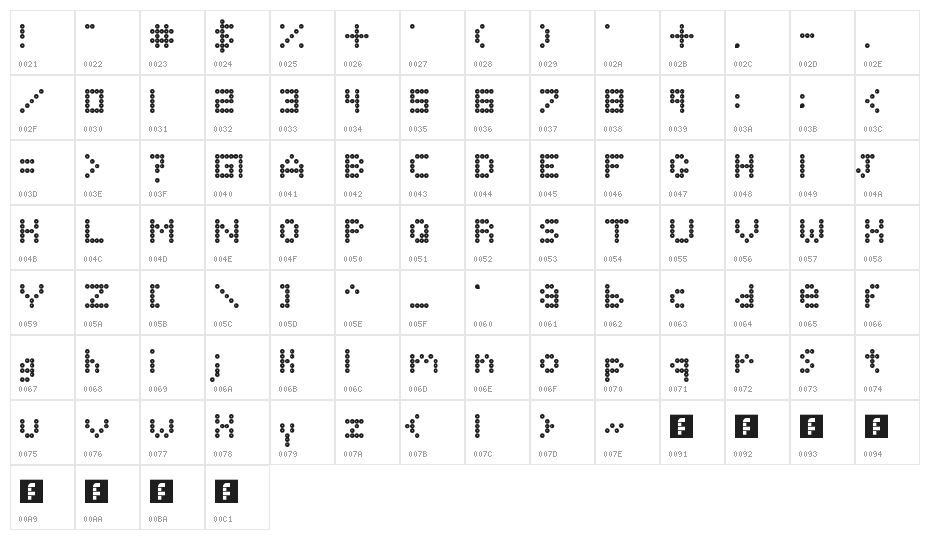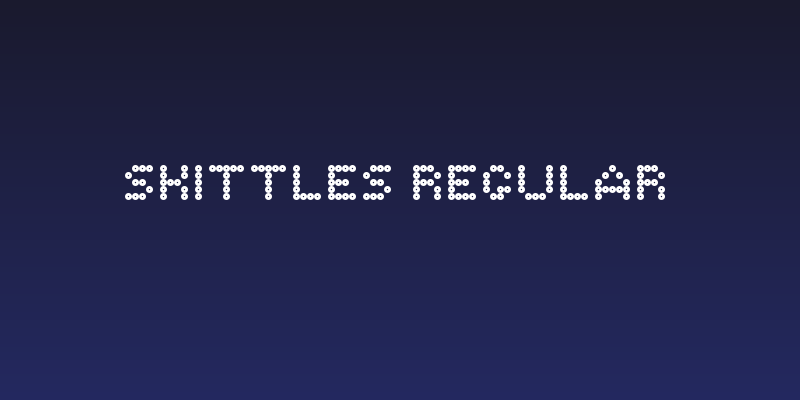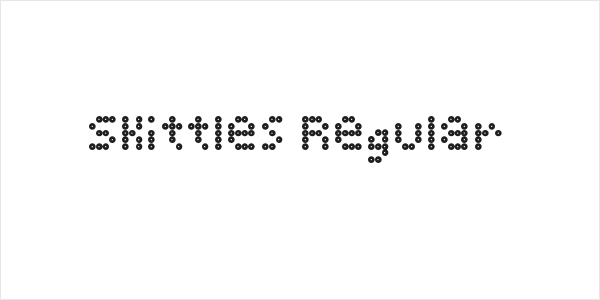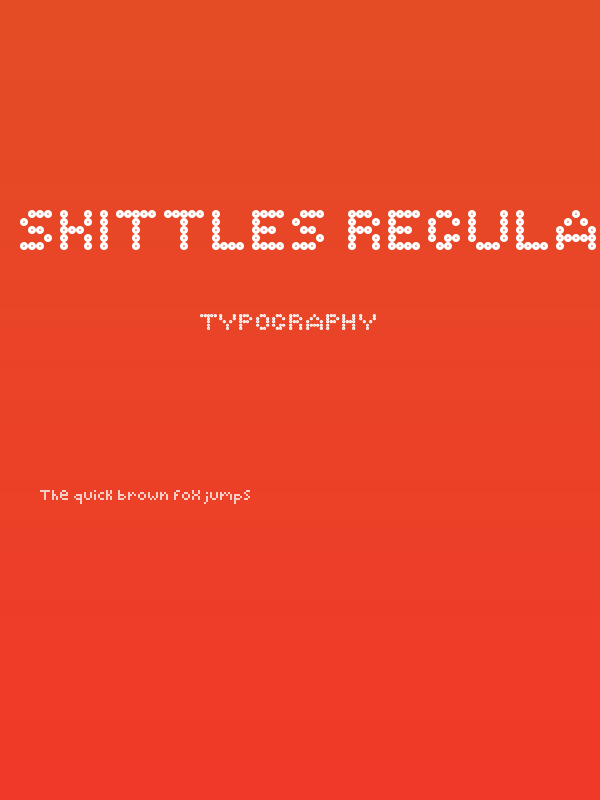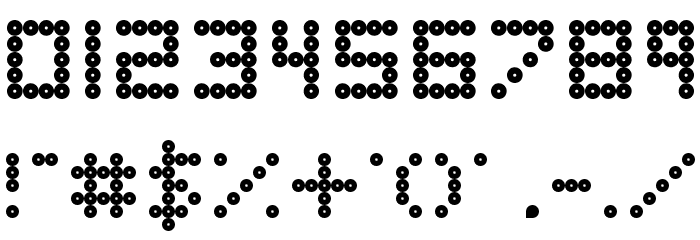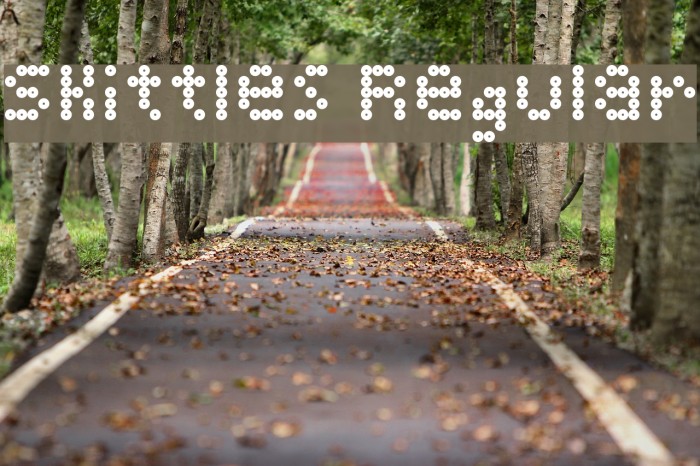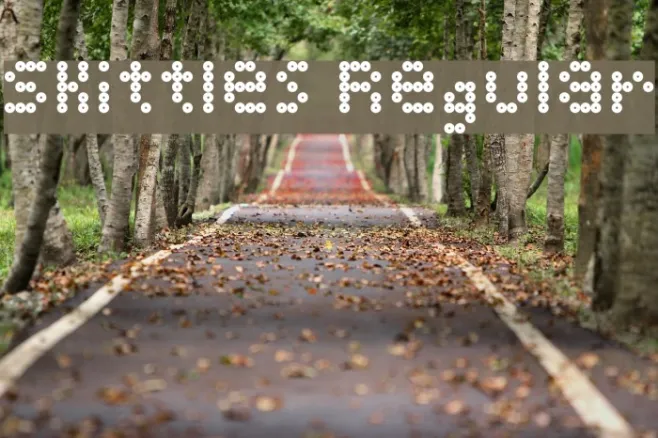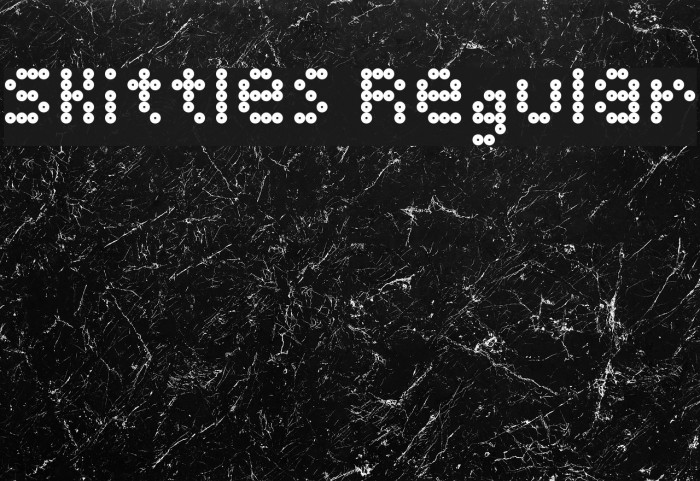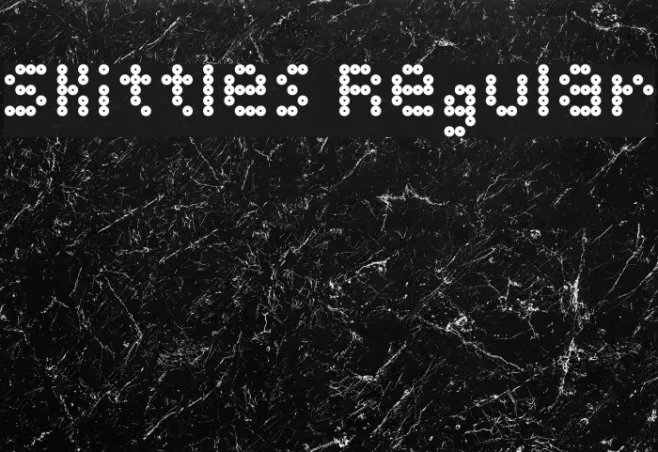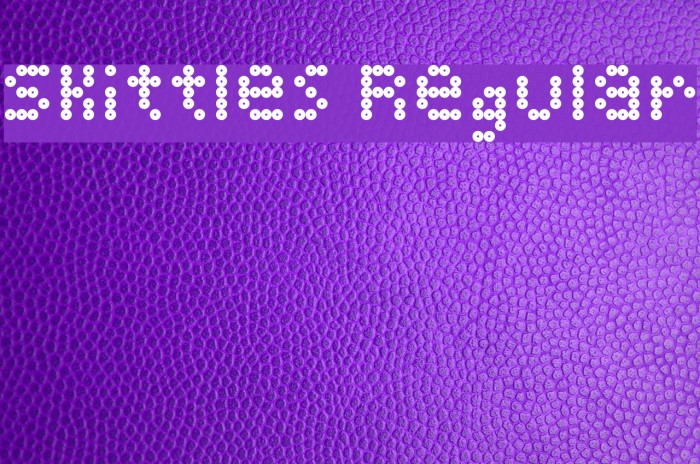
Skittles Regular Font
Skittles Regular Description
This playful and creative font is composed entirely of small, evenly spaced dots that form each character. Its unique dotted style gives it a distinct and eye-catching appearance, making it ideal for designs that require a fun and modern touch. The font maintains a consistent size and spacing for each dot, ensuring a uniform look across all characters. Its geometric nature adds a sense of order and precision, while the dotted pattern introduces a whimsical element. This font is perfect for projects that aim to stand out with a bold and unconventional style.
| Proposed Projects | Ideal for children's books, playful branding, party invitations, and creative posters. |